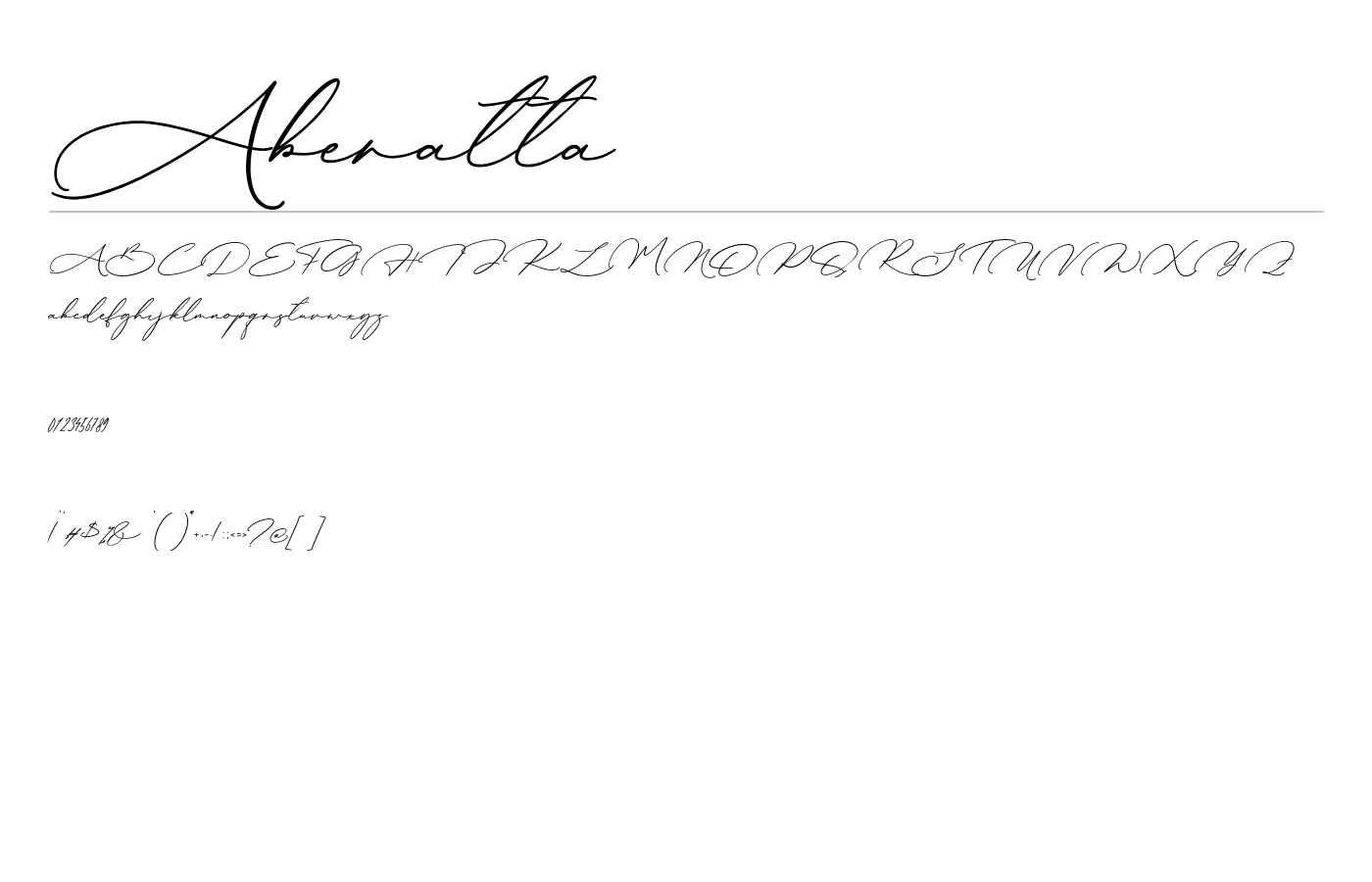
Aberatta is an elegant and delicate script font characterized by its thin, flowing strokes and graceful, calligraphic style. Its high contrast and slender letterforms evoke a sense of sophistication and luxury, making it ideal for wedding invitations, upscale branding, and refined editorial design. This font’s airy and stylish appearance works beautifully in contexts that require a personal, artistic touch with a modern yet classic feel.
Aberatta Font
About Aberatta Font